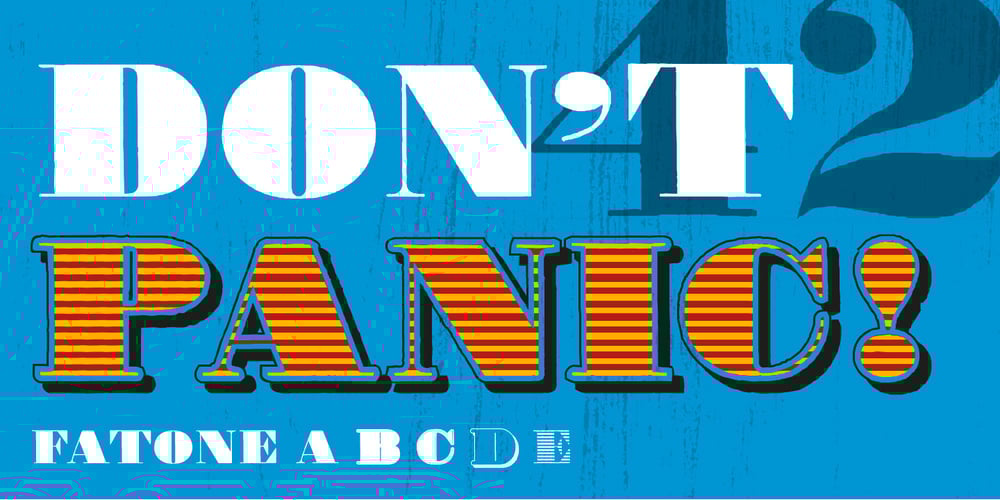
Fatone
Fatone font
Fatone Font Family was designed by Florian Zietz and published by Librito.de. Fatone contains 5 styles and family package options. This classic typeface is based upon a poster printed with large wooden letters. The all caps font is perfect for large headlines with a handmade touch. Missing letters have been added. There are altogether five fonts: the regular »Fatone A«, the extra bold »Fatone B«, an outline version named »Fatone C«, the »Fatone D« providing a shadowed version and the striped »Fatone E«. The different versions of the letters can be placed on top of each other (to use the multilayer options of this font make sure that your layout program is switched to metrical kerning).